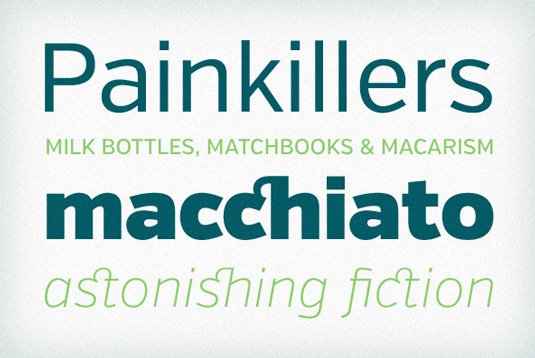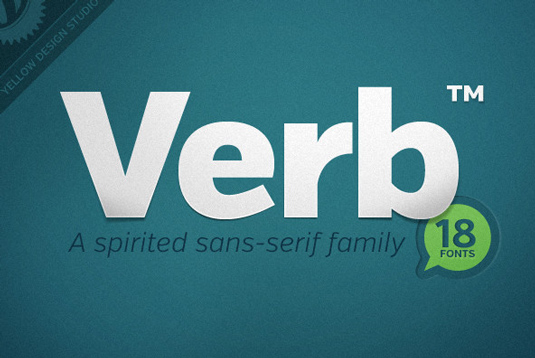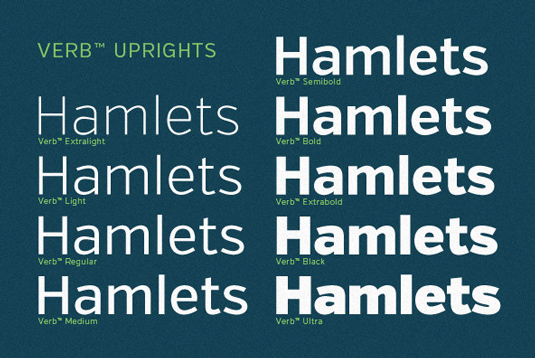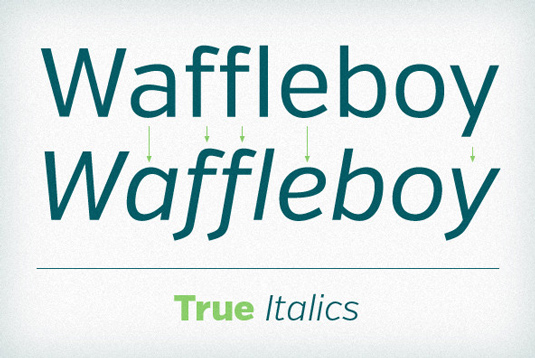
Font of the day: Verb
Every day we showcase the best fonts on the web. Today it's Verb by Yellow Design Studio.
Verb by Yellow Design Studio
Today's font of choice is Verb by Yellow Design Studio. Available from YouWorkForThem, the font is described as being 'an 18-font sans serif family that's friendly and approachable, but trades huggable roundness for confidence and energy'.